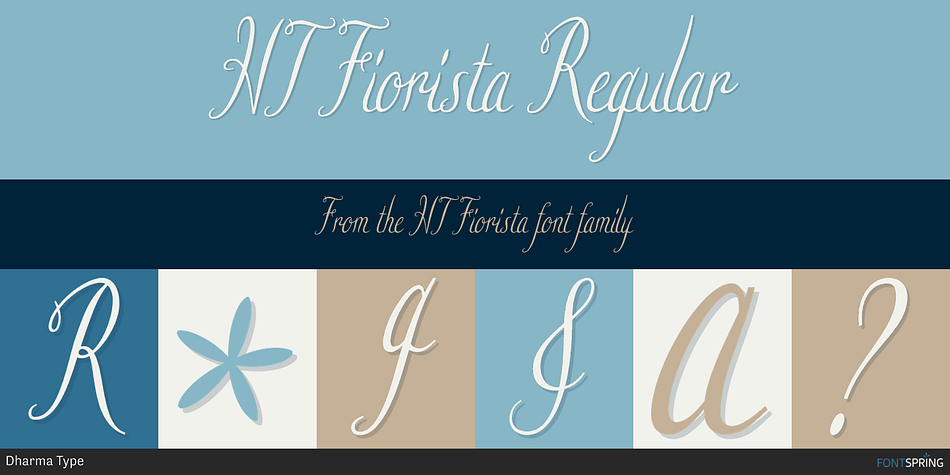
HT Fiorista Regular
HT Fiorista is a script font published by Dharma Type.
Retro script fonts inspired by shopfront lettering and hand-painted wall advertisements from 1950s Italy.
They capture the nostalgic charm of mid-century Italian streets, blending elegance with a handcrafted feel.
Fiorista is a pretty brush scrip with thin and curly line. Florists works best for greeting card, wedding ceremony invitation or shop card of fashion or apparel. It could also be used for film, magazines, advertising and websites.